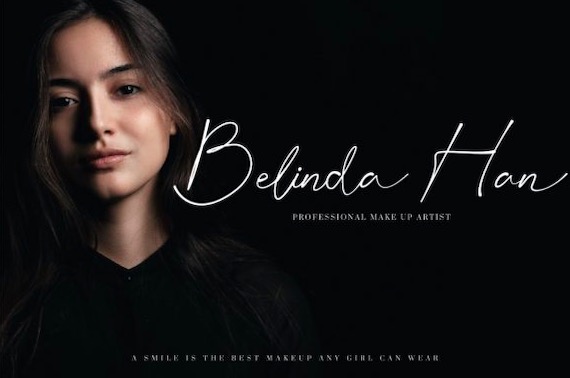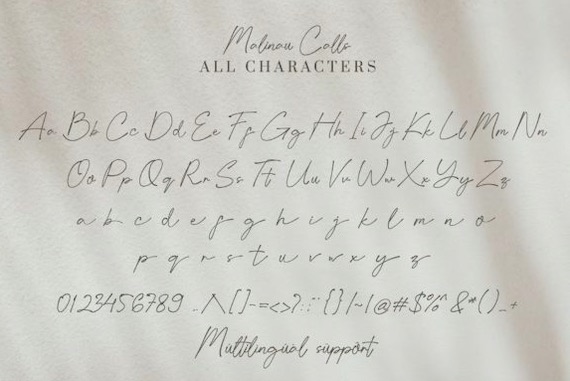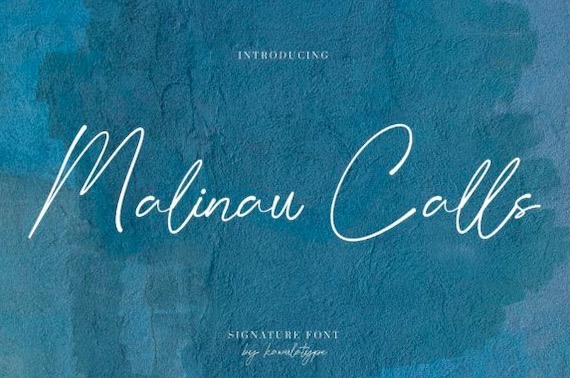
Malinau Calls is a modern classy stylish handwritten font that was created and shared by Kawulatype Studio. This script font is inspired by one particular place in Kalimantan, Indonesia. With its gorgeous features, Malinau Calls font is perfect for brandings like ads, wedding design, social media posts, product packaging, poster, flyer, and more. Moreover, this handwritten font is PUA encoded which means you can access all of the amazing glyphs and ligatures with ease!
Malinau Calls Handwritten Signature Font